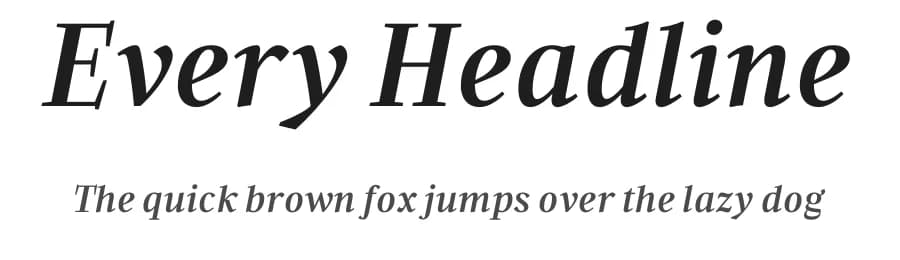
About Every Headline Font
'Every Headline' is a new strong and elegant serif font, that will bring an outstanding character to your project.
- Bold, Classic, Refined, Basic
Every Headline Font is a versatile serif font that works for both headings and body text. Pair it with a contrasting sans-serif or slab serif font to add visual interest and a clear distinction between titles and body copy.